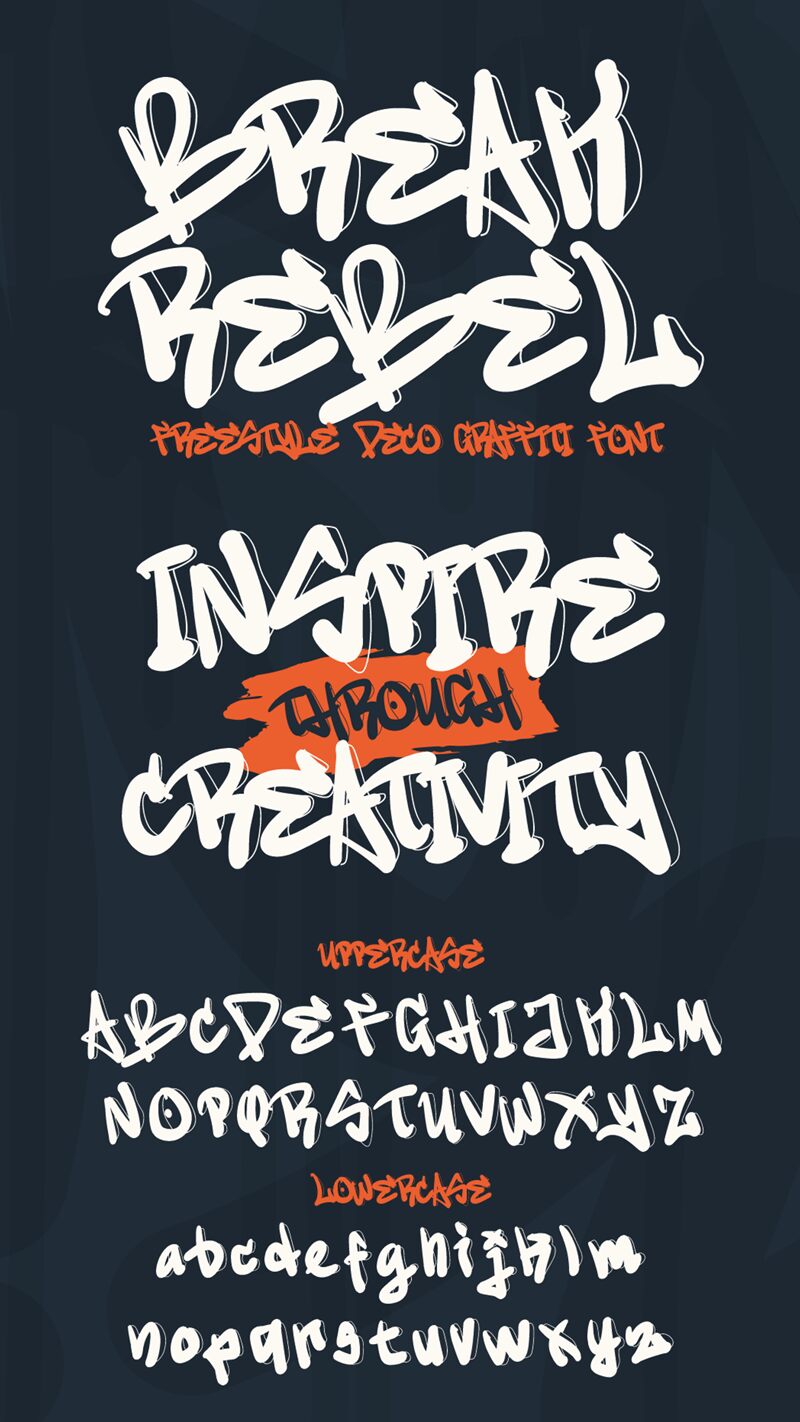
Break Rebel font by Cikareotype Studio is a free graffiti font defined by its lively contemporary vibe and urban aesthetic. Its expressive lettering is characterized by unrestrained shapes that give off a feel of freedom and energy. This font allows you to give a touch of modernity and artistic flair to your design, which makes it suitable for design projects, such as a website, app, or social media use.
This font fits well into modern, contemporary, and even commercial contexts. Use it in packaging, brand identity, logos, and labels for all sorts of projects. Its dynamic appearance can also come in handy if you’re designing eye-catching poster designs and advertisements. It also works well in a smaller size such as in branding or logo design. As with many fonts, Break Rebel might also come in use if you combine it with other fonts in different sections.